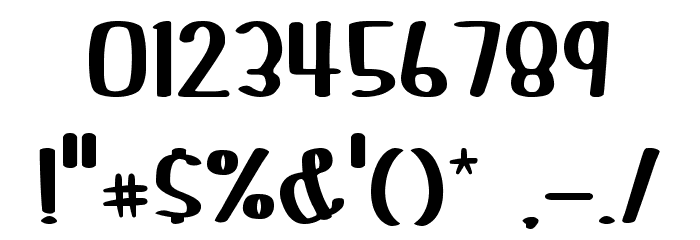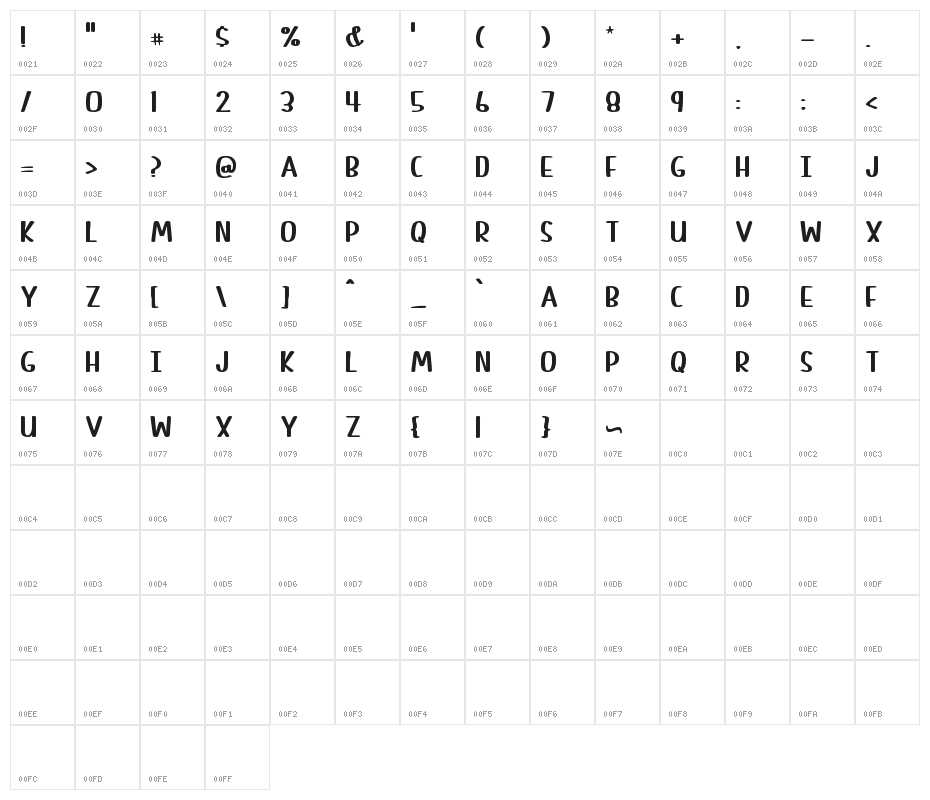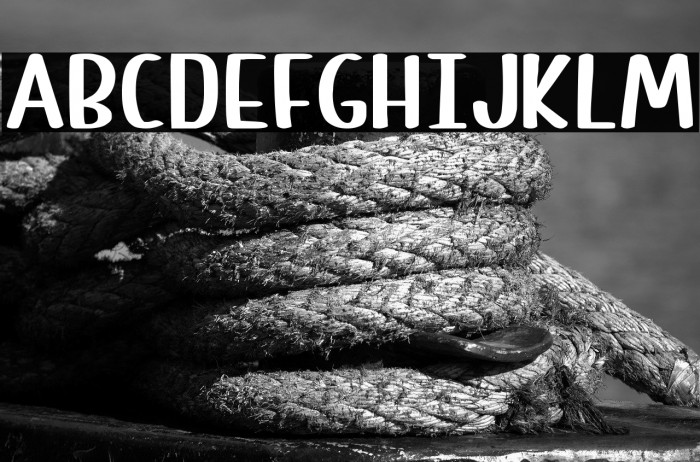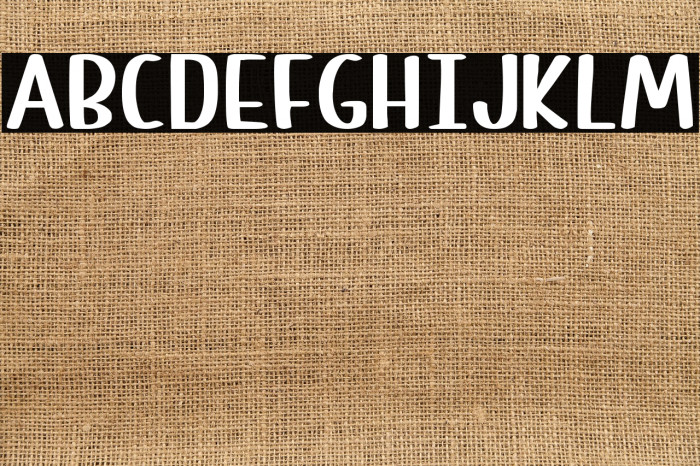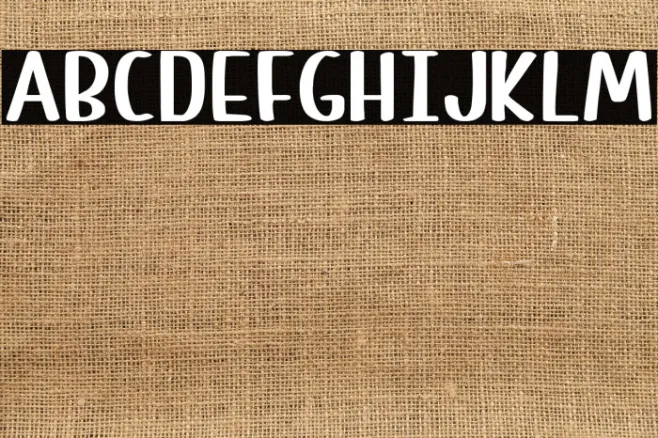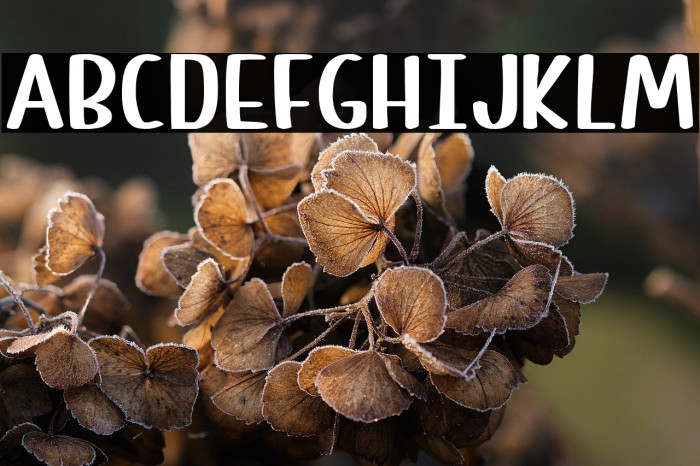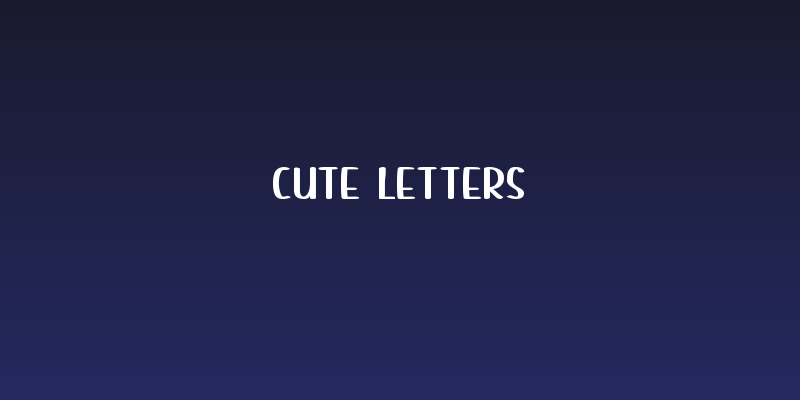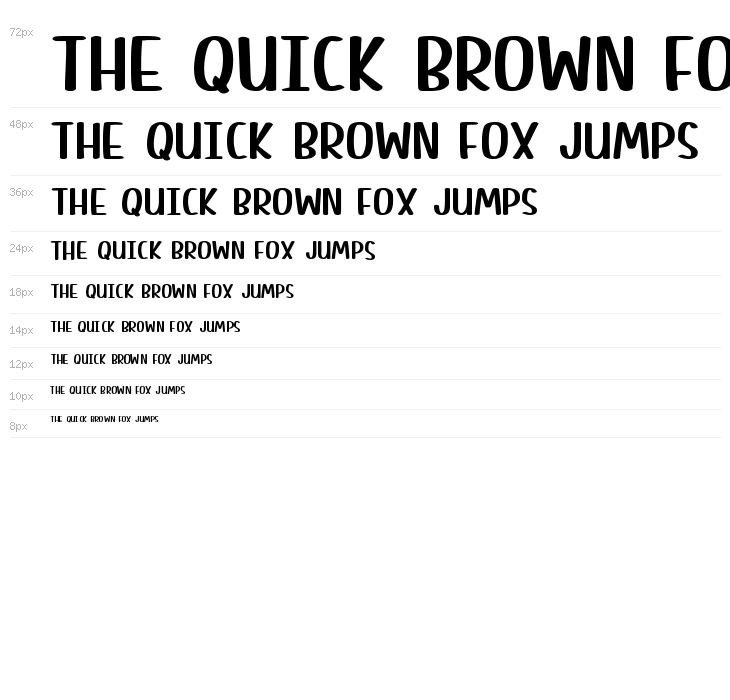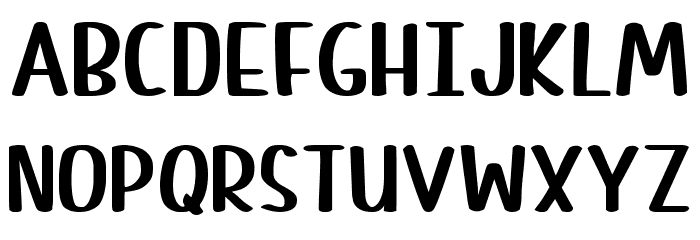
Cute Letters Font
Cute Letters Description
This playful and whimsical font features rounded edges and a slightly irregular baseline, giving it a hand-drawn, friendly appearance. The characters are bold and have a consistent stroke width, which adds to their readability and charm. The uppercase and lowercase letters maintain a uniform style, while the numerals and special characters blend seamlessly with the alphabet. Its casual and approachable design makes it ideal for projects that require a touch of fun and creativity.
| Proposed Projects | Ideal for children's books, greeting cards, playful branding, and social media graphics. |